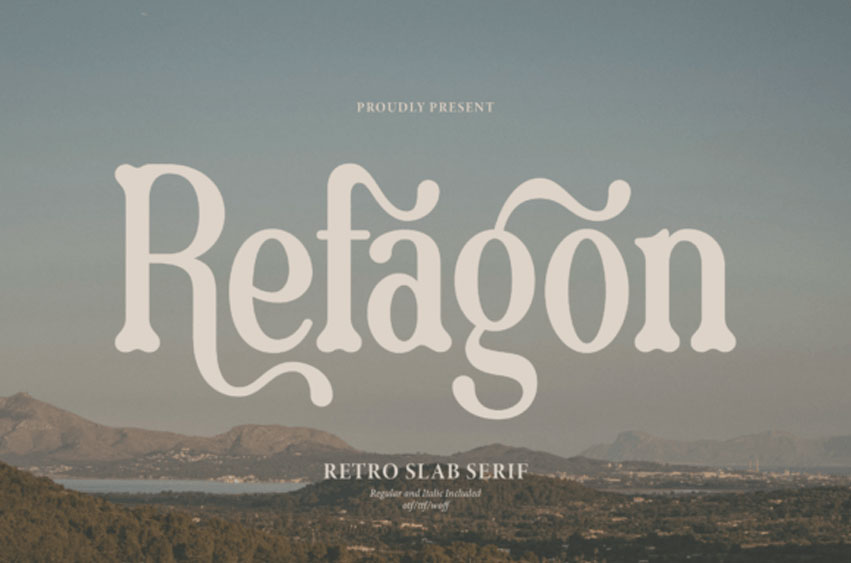
Refagon Font is a retro slab serif font that combines a vintage feel with modern readability.
Its thick, bold letters have squared edges, giving it a strong and friendly look. Perfect for headlines and posters, Refagon adds a touch of nostalgia while remaining easy to read.